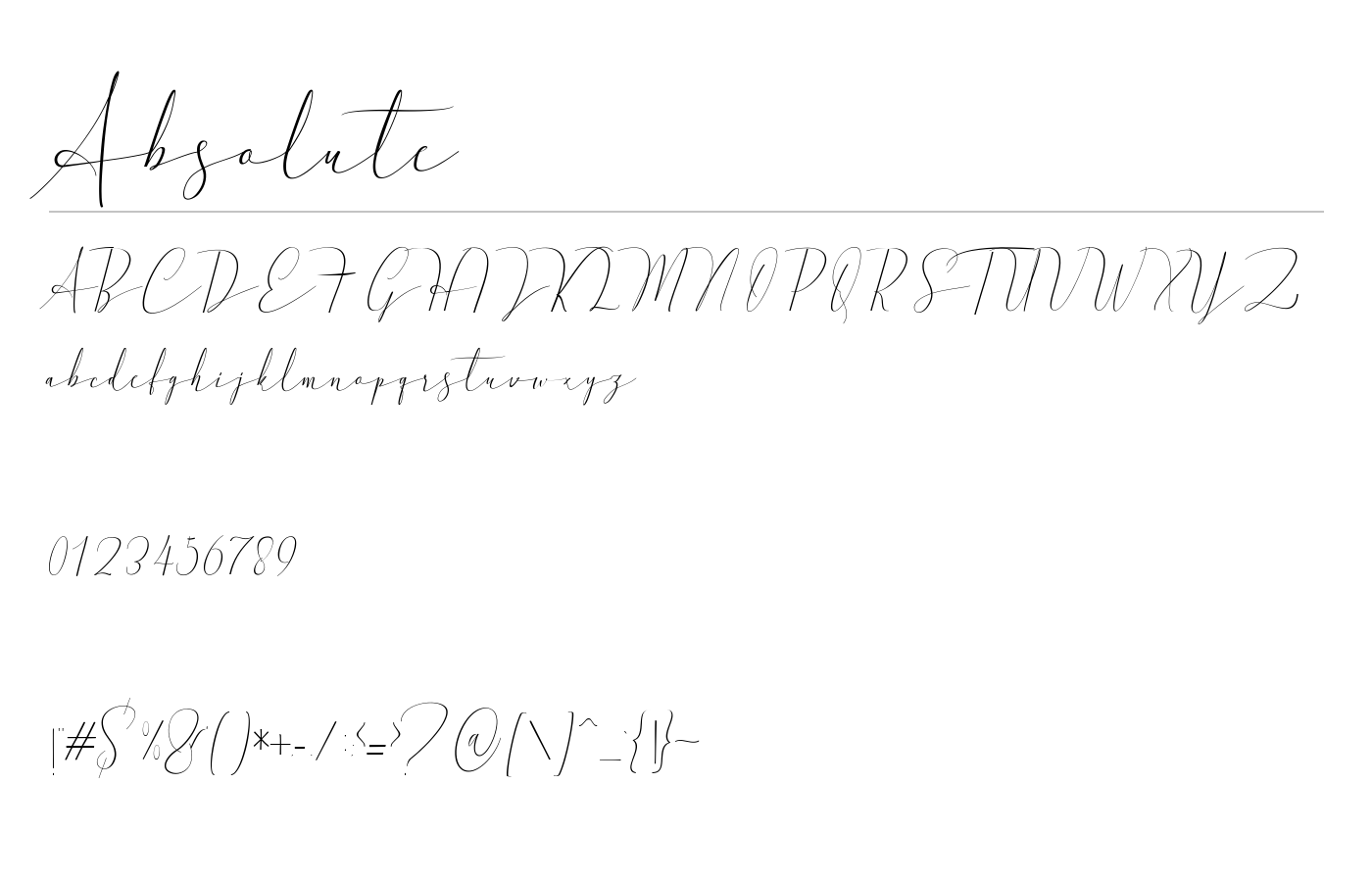
Absolute Font is an elegant, delicate script with a light weight and tall, slender letterforms that flow with graceful, calligraphic strokes. Its fine lines and slightly whimsical feel make it perfect for sophisticated branding, wedding invitations, and upscale editorial designs where a refined, personal touch is desired. This font shines in settings that need a stylish, airy aesthetic without sacrificing readability.
Absolute Font